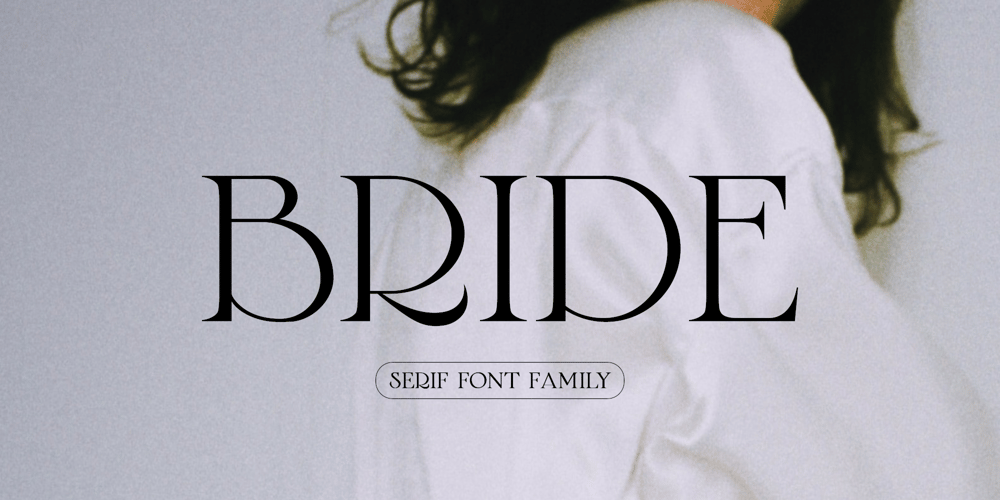
Bride Serif Font Family was designed by Elvina Gafarova and published by Elvina Studio. Bride Serif contains 9 styles and family package options. Introducing my new Bride serif font family with elegant poetry style. Perfect for branding, wedding, logos, invitations and more.Includes: Upper/lowercase, numbers, punctuations. Regular, Italic, Bold, Alternates, etc. Language support: English, German, French, Spanish, Italian, Danish, Finnish, Portuguese, Swedish, Norwegian, Dutch, Indonesian, Luxembourgish, Icelandic, Cornish, Hungarian, Filipino, Turkish.I hope you enjoy it!